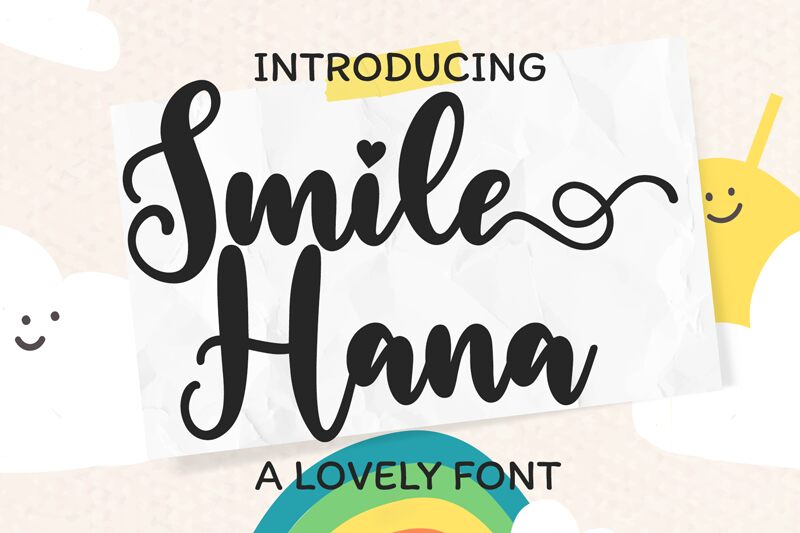
Smile Hana
Smile Hana is a stunning semi-bold calligraphy font designed by Bearytype. Its flowing, hand-drawn style brings personality and elegance to your designs, making it perfect for invitations, greeting cards, logos, and branding projects. The thick and thin strokes of Smile Hana add depth and dimension to your text while maintaining legibility. With its unique flair and sophistication, this font is ideal for highlighting special occasions or adding a touch of charm to everyday designs. Explore the endless possibilities with Smile Hana and elevate your next project with its beautiful calligraphic style!